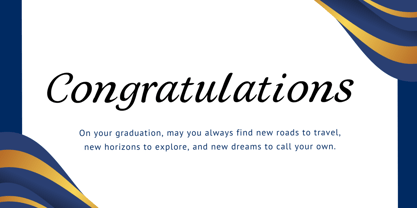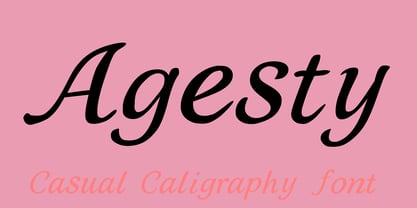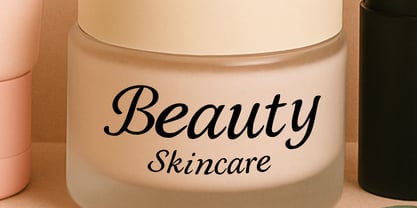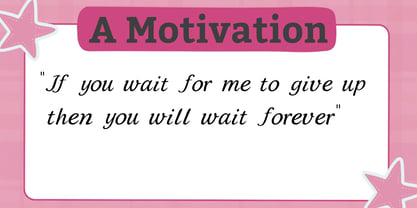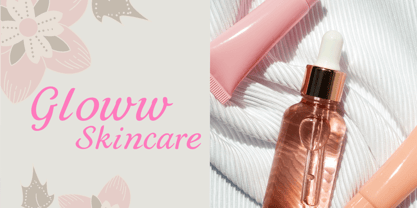
Agesty
The Agesty Font Family was designed by Erick Rismawan and published by Eroane Creative. Agesty contains 1 styles. More about this family
Agesty is a casual calligraphy font that blends elegance with a free-flowing handwritten style. Crafted with smooth curves and expressive strokes, Agesty is perfect for branding, wedding invitations, product packaging, social media posts, and any design that needs a personal and stylish touch.
This font features natural letter connections and a charming handwritten feel, making it ideal for creative projects that want to stand out. Agesty is also PUA encoded, ensuring easy access to all stylistic alternates and ligatures without the need for design software.
Features:
• Uppercase & lowercase
• Numbers & punctuation
• Ligatures & alternates
• PUA encoded
• Multilingual support
Let Agesty bring character and charm to your next design.